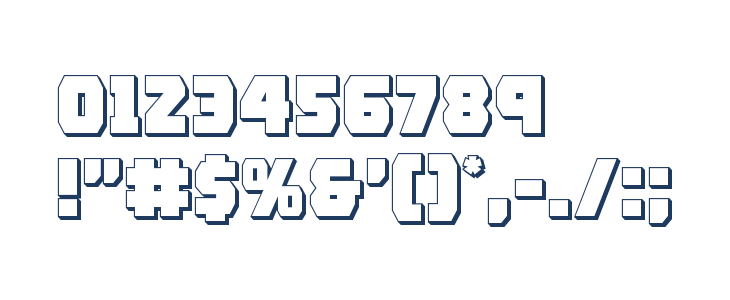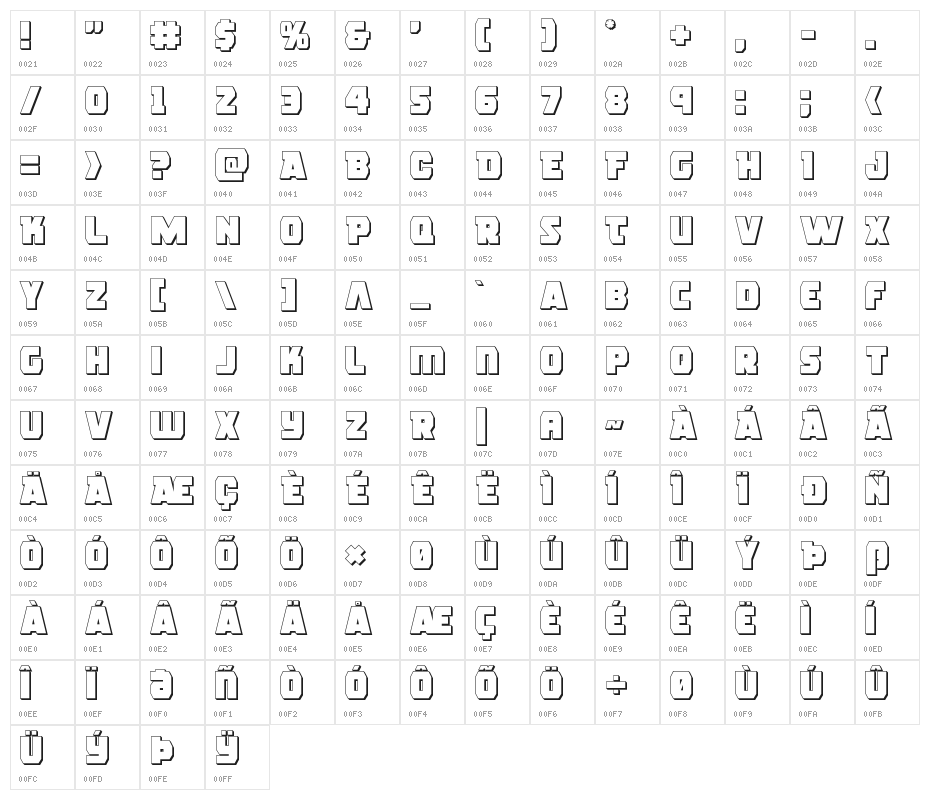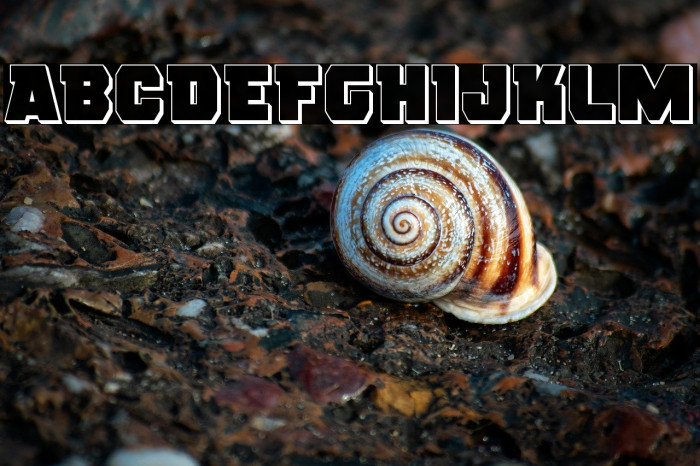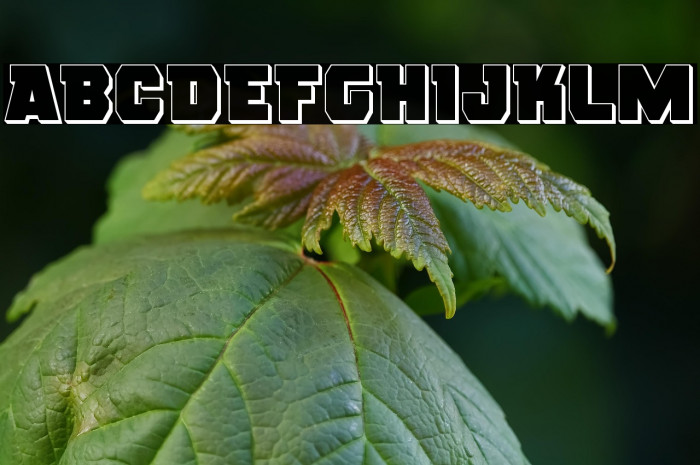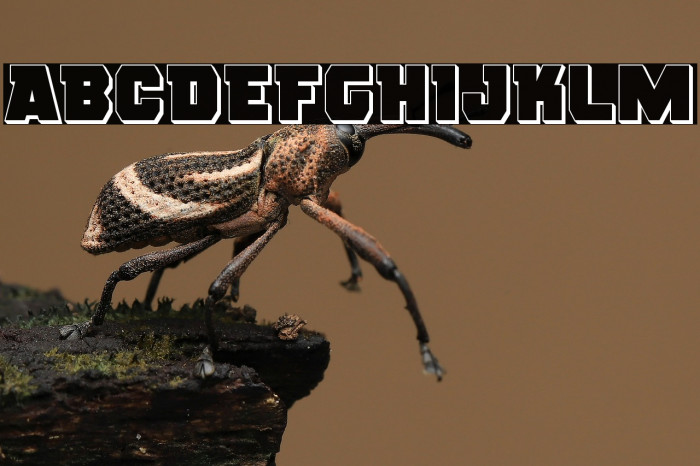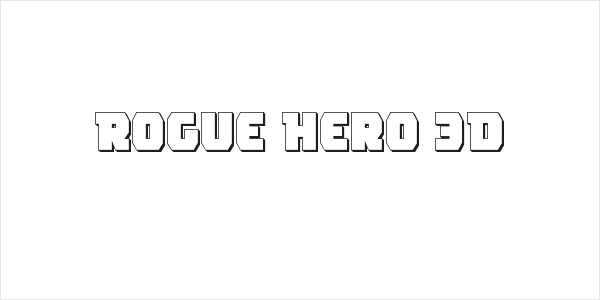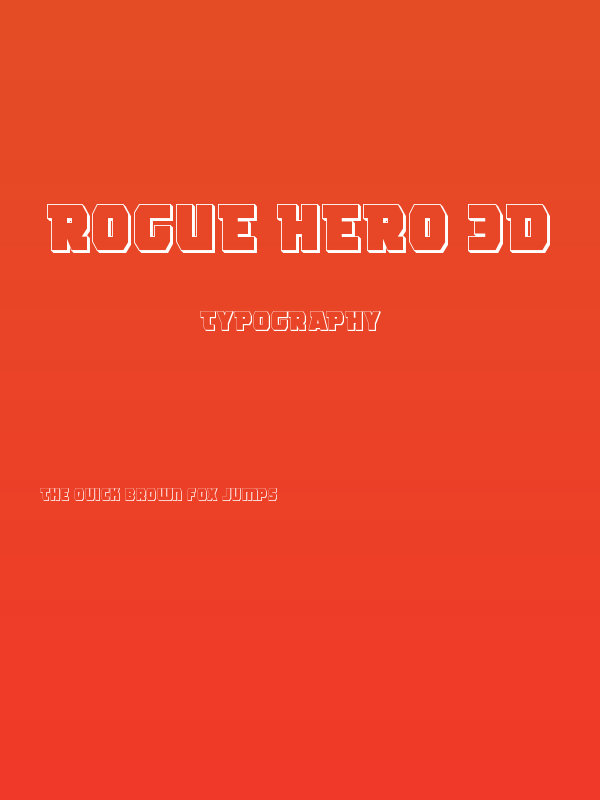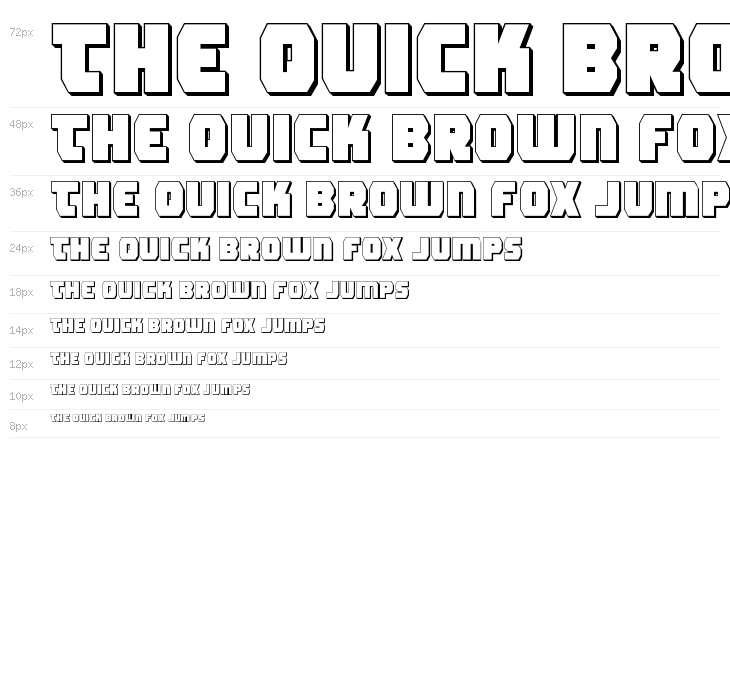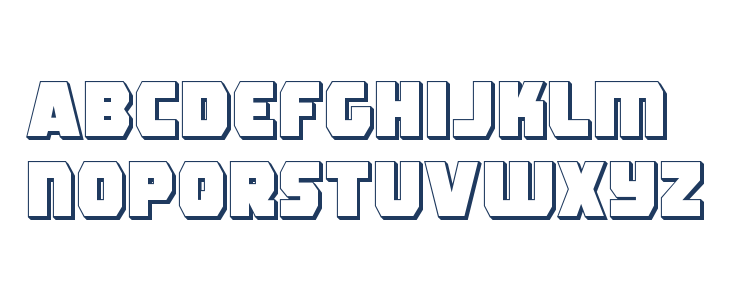
Rogue Hero 3D Font
Rogue Hero 3D Description
This font features a bold, three-dimensional design with a strong, impactful presence. Each character is outlined with a thick black border, giving it a distinct shadow effect that enhances its 3D appearance. The letters are blocky and geometric, with sharp angles and clean lines, creating a sense of strength and modernity. The uppercase and lowercase letters maintain a consistent style, while the numbers and special characters are designed to match the overall aesthetic. This font is ideal for projects that require a bold and attention-grabbing display.